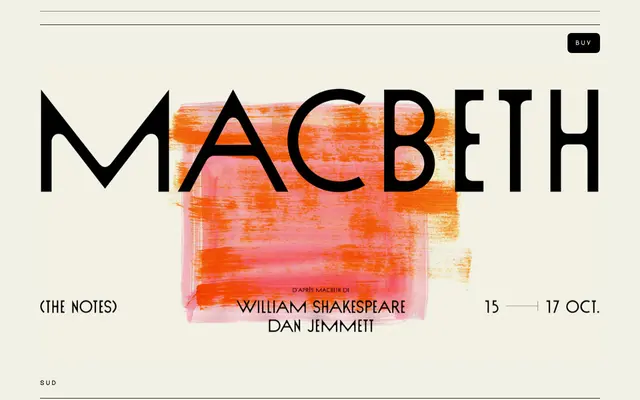
Sud
VJ Type · Jérémy Schneider · 2015
A single-weight display typeface designed for the 2015–2016 identity of the Théâtre des Bouffes du Nord in Paris, characterised by unexpectedly variable letter widths.
Designed by Jérémy Schneider in 2015, Sud originated as part of the graphic identity for the Théâtre des Bouffes du Nord in Paris. Its defining trait is a deliberate inconsistency in letter widths, with individual characters expanding or contracting in ways that feel studied rather than accidental. It was created alongside Nord, a bolder companion, the two intended to work together within the theatre's visual system.
A single-weight display typeface with deliberately irregular letter widths, designed for a theatre identity rather than extended text use, placing it firmly in the display category.